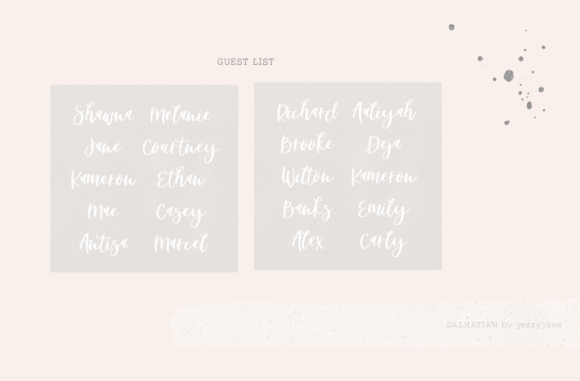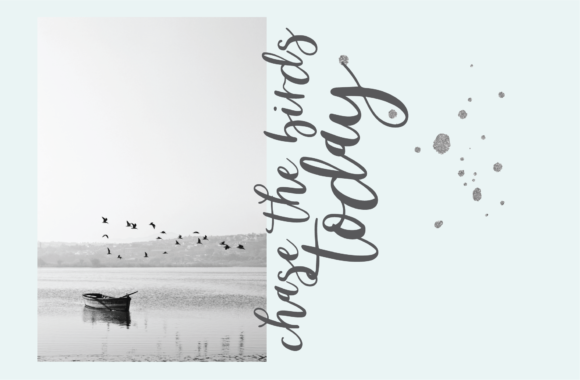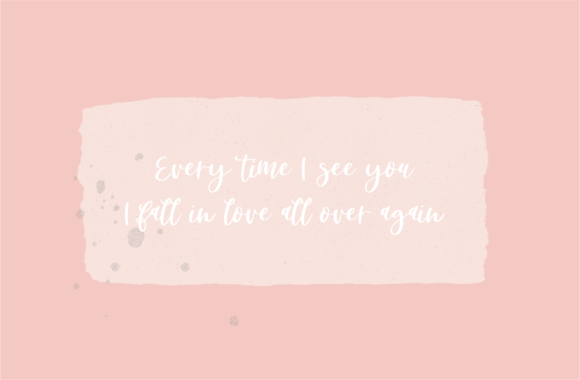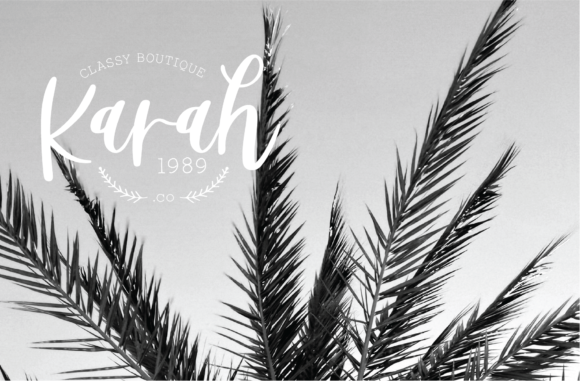
Introducing Dalmatian Font: Elevate Your Designs with a Stylish Handwritten Touch
Are you on the hunt for a font that adds a dash of personality and style to your designs? Look no further than the Dalmatian Font. This beautiful, handwritten font is perfect for creating eye-catching logos, branding materials, and quotes that are sure to leave a lasting impression. With its unique and beautiful touch, Dalmatian Font is the ideal choice for designers and crafters looking to bring their designs to life.
What Makes Dalmatian Font So Special?
Dalmatian Font is more than just a font – it’s an experience. Every letter has been carefully crafted to bring a touch of elegance and sophistication to your designs. The font’s stylish handwritten aesthetic is perfect for adding a personal touch to any project, from logos and branding materials to quotes and social media graphics.
One of the standout features of Dalmatian Font is its uniqueness. Unlike generic fonts that can look bland and uninspired, Dalmatian Font boasts a distinctive character that sets it apart from the rest. Each letter has been meticulously designed to showcase a beautiful, hand-crafted touch that will make your designs stand out from the crowd.
The Perfect Choice for Designers and Crafters
Whether you’re a professional designer or a crafter looking to add a personal touch to your projects, Dalmatian Font is the perfect choice. The font’s versatility makes it suitable for a wide range of applications, from:
- Logos and branding materials: Create a lasting impression with a custom logo that showcases your brand’s personality and style.
- Quotes and social media graphics: Add a touch of elegance and sophistication to your quotes and social media graphics.
- Stationery and invitations: Create beautiful stationery and invitations that showcase your personal style.
- DIY projects: Add a personal touch to your DIY projects, from crafts to home decor.
Why Choose Dalmatian Font?
So why choose Dalmatian Font over other fonts? Here are just a few reasons:
- Unique and beautiful touch: Every letter has been carefully crafted to bring a touch of elegance and sophistication to your designs.
- Versatile: Suitable for a wide range of applications, from logos and branding materials to quotes and social media graphics.
- Handwritten aesthetic: Adds a personal touch to any project, making it perfect for designers and crafters looking to create unique and eye-catching designs.
Get Creative with Dalmatian Font
Ready to take your designs to the next level with Dalmatian Font? Here are some tips to get you started:
- Pair Dalmatian Font with other fonts to create a unique and eye-catching combination.
- Use Dalmatian Font to add a personal touch to your designs, from logos and branding materials to quotes and social media graphics.
In conclusion, Dalmatian Font is a stylish handwritten font that is perfect for designers and crafters looking to add a touch of elegance and sophistication to their designs. With its unique and beautiful touch, Dalmatian Font is sure to make your designs come alive. Whether you’re creating logos and branding materials, quotes and social media graphics, or DIY projects, Dalmatian Font is the perfect choice. So why wait? Download Dalmatian Font today and start creating stunning designs that showcase your personality and style.